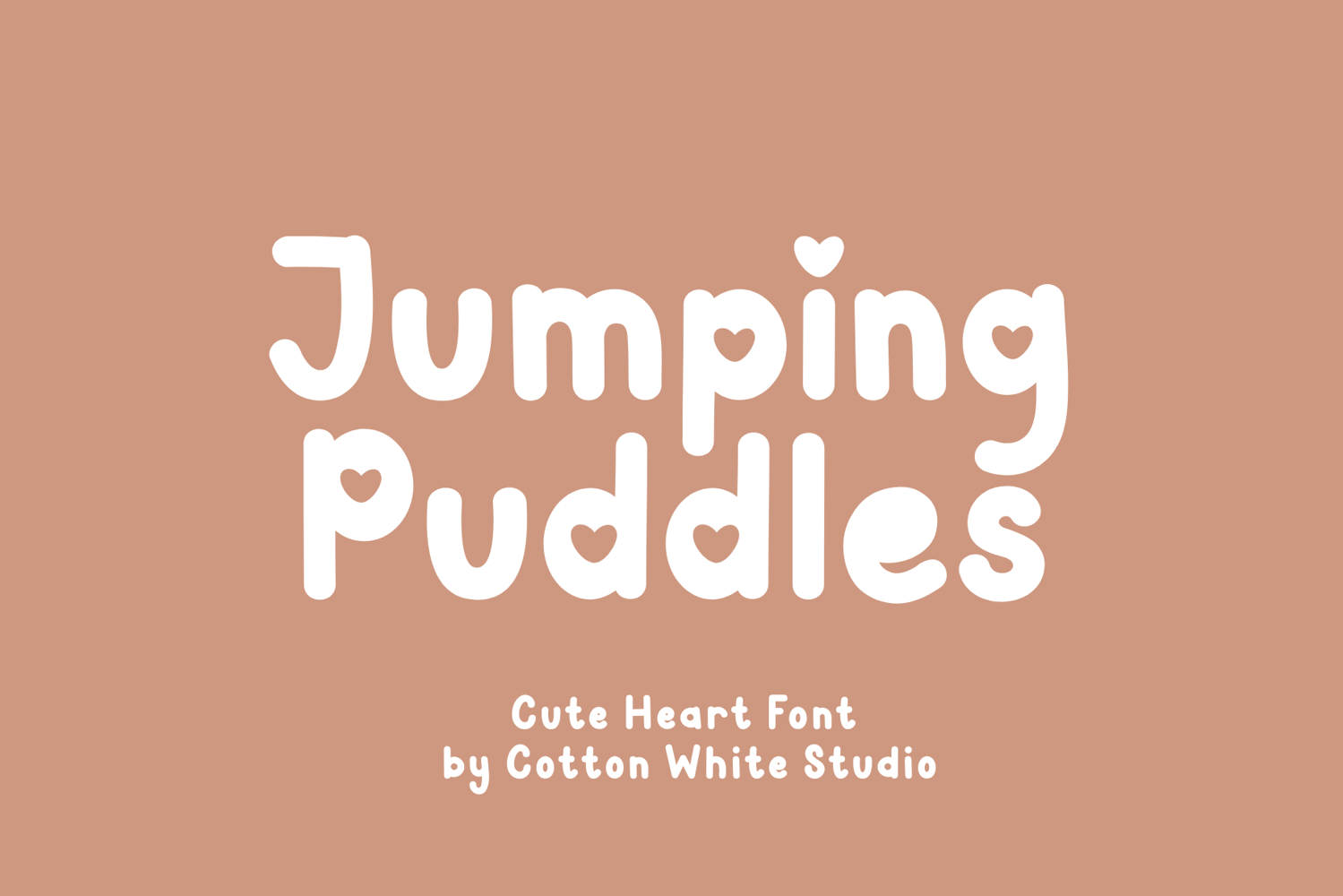
Jumping Puddles
Introducing Jumping Puddles, the charming handwritten font that effortlessly blends simplicity with cuteness! Clean, easy-to-read letters with a handwritten feel. Perfect for adding a unique, handmade touch to any project, this font is ideal for creating everything from heartfelt invitations to fun branding materials, social media posts, digital journals, and more.
Includes uppercase and lowercase letters, numbers, essential punctuation marks, and multilingual support. ❤️